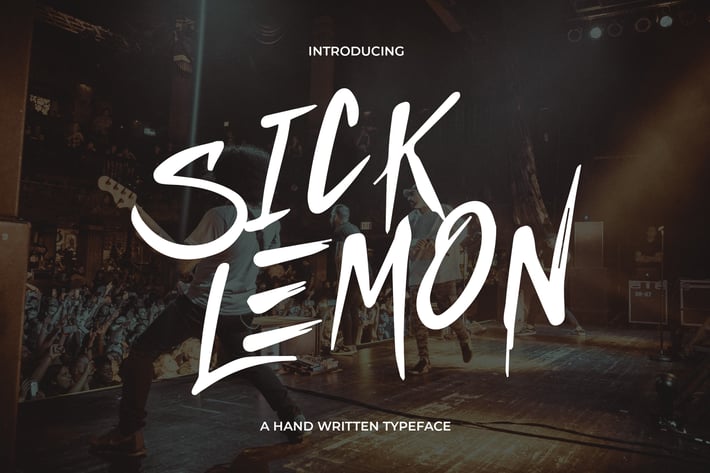
Sick Lemon - Hand Written Typeface
Sick Lemon is a casual font with natural stroke, comes with uppercase, lowercase, numerals, and punctuation. This font will be perfect pick for various designs & artworks like social media post, brand type, posters, merchandise, packaging, headlines, merchandises, t-shirt, and many more..
Uppercase Letters
Lowercase alternative Letters
* Numbers and Punctuation